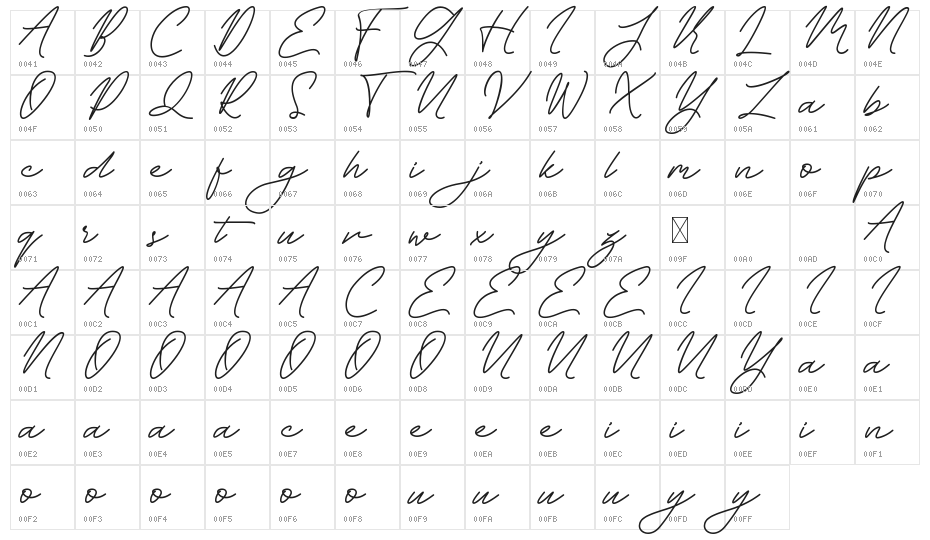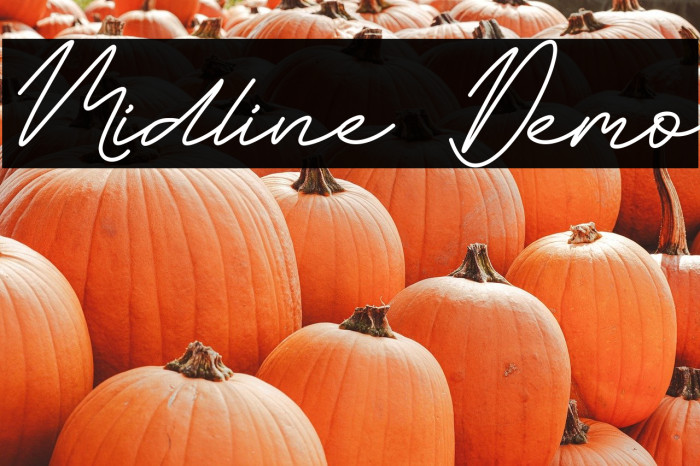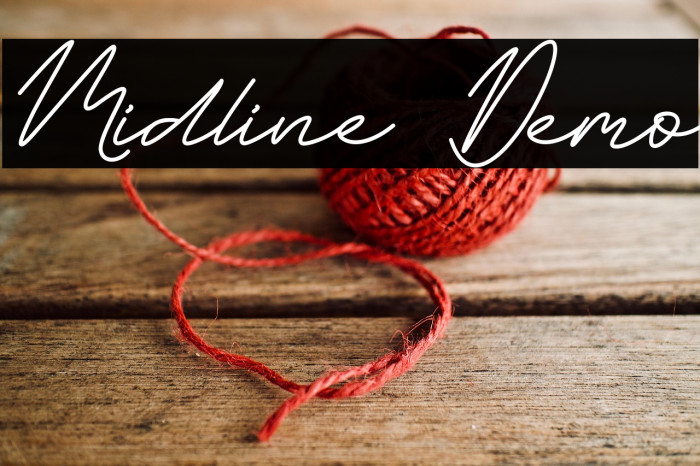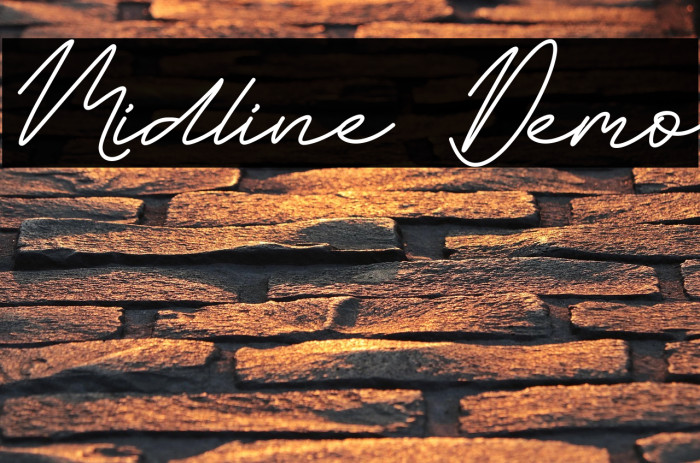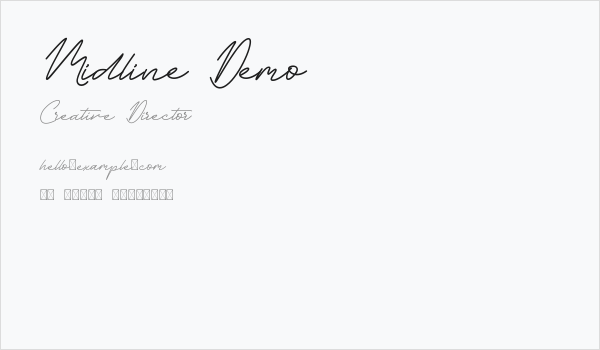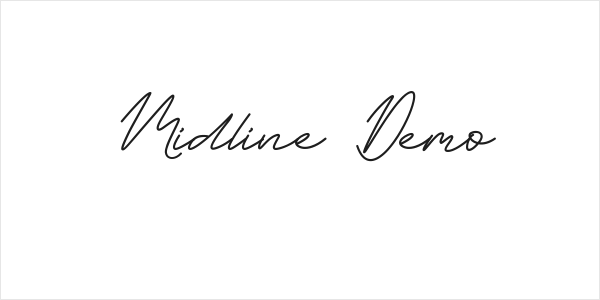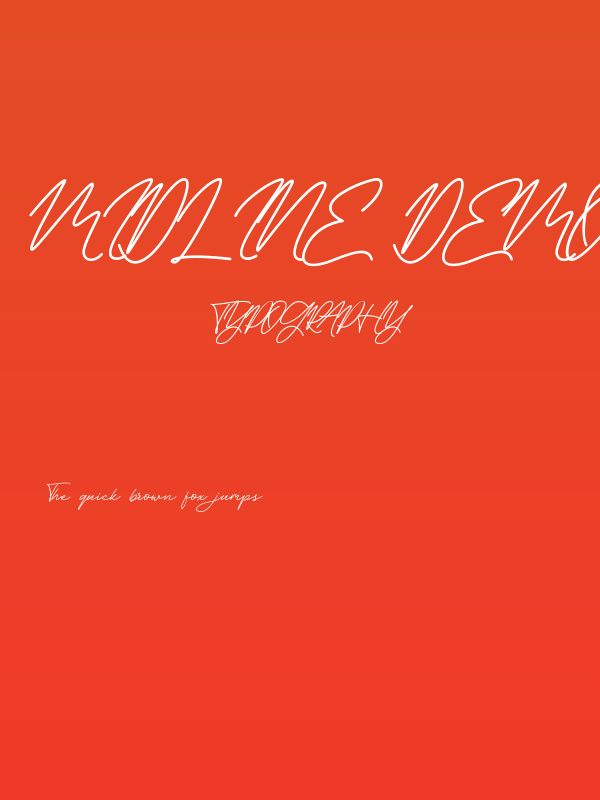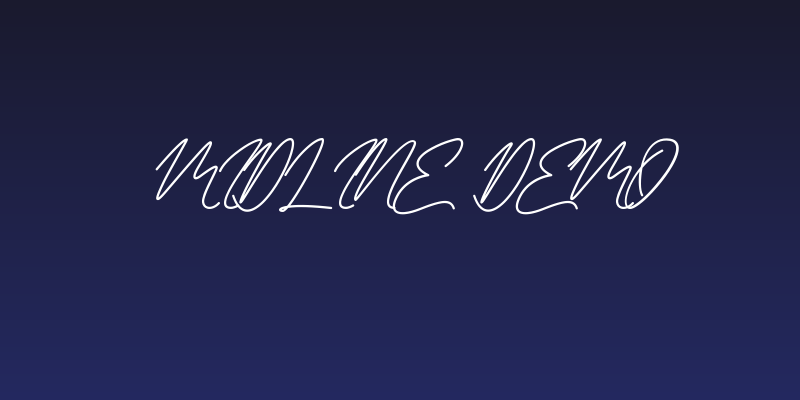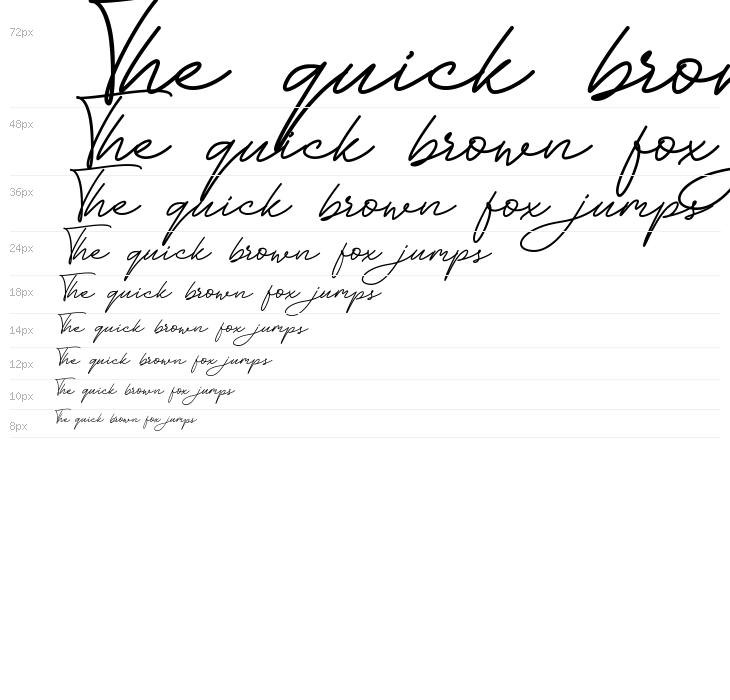
Midline Demo Font
Midline Demo Description
This font exudes elegance and sophistication with its fluid, cursive style. The characters are intricately connected, creating a seamless flow that mimics the natural movement of handwriting. Each letter is crafted with delicate curves and loops, giving the font a graceful and artistic appearance. The uppercase letters are bold and prominent, while the lowercase letters maintain a consistent, flowing form. The font's design is both classic and modern, making it versatile for various applications. Its unique style is perfect for adding a personal touch to any project, whether it be formal invitations, branding, or artistic endeavors.
| Overall Style | Elegant, Artistic |
| Use Case | Logos, Invitations, Artistic projects |
| Proposed Projects | Ideal for wedding invitations, branding, greeting cards, and artistic projects requiring a personal touch. |